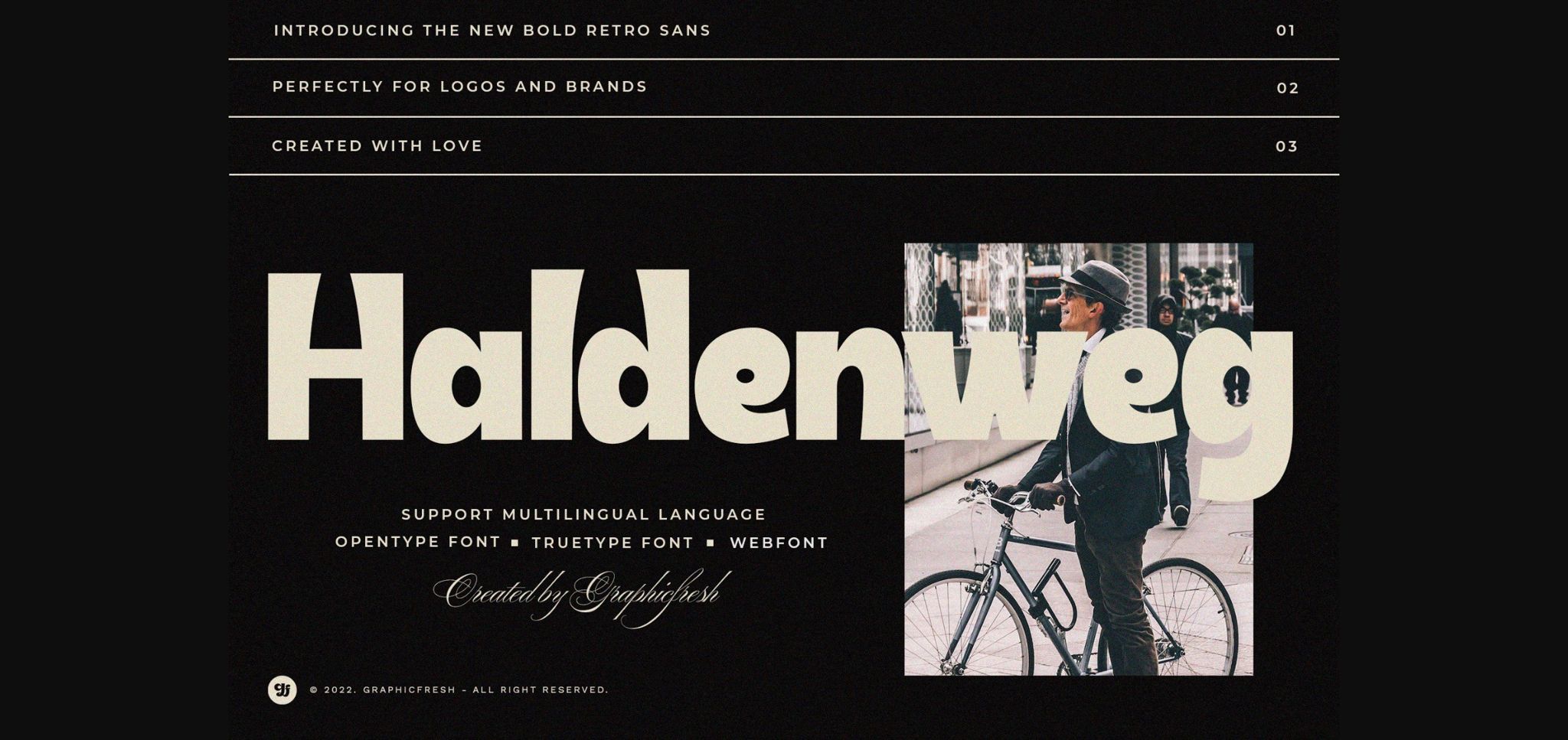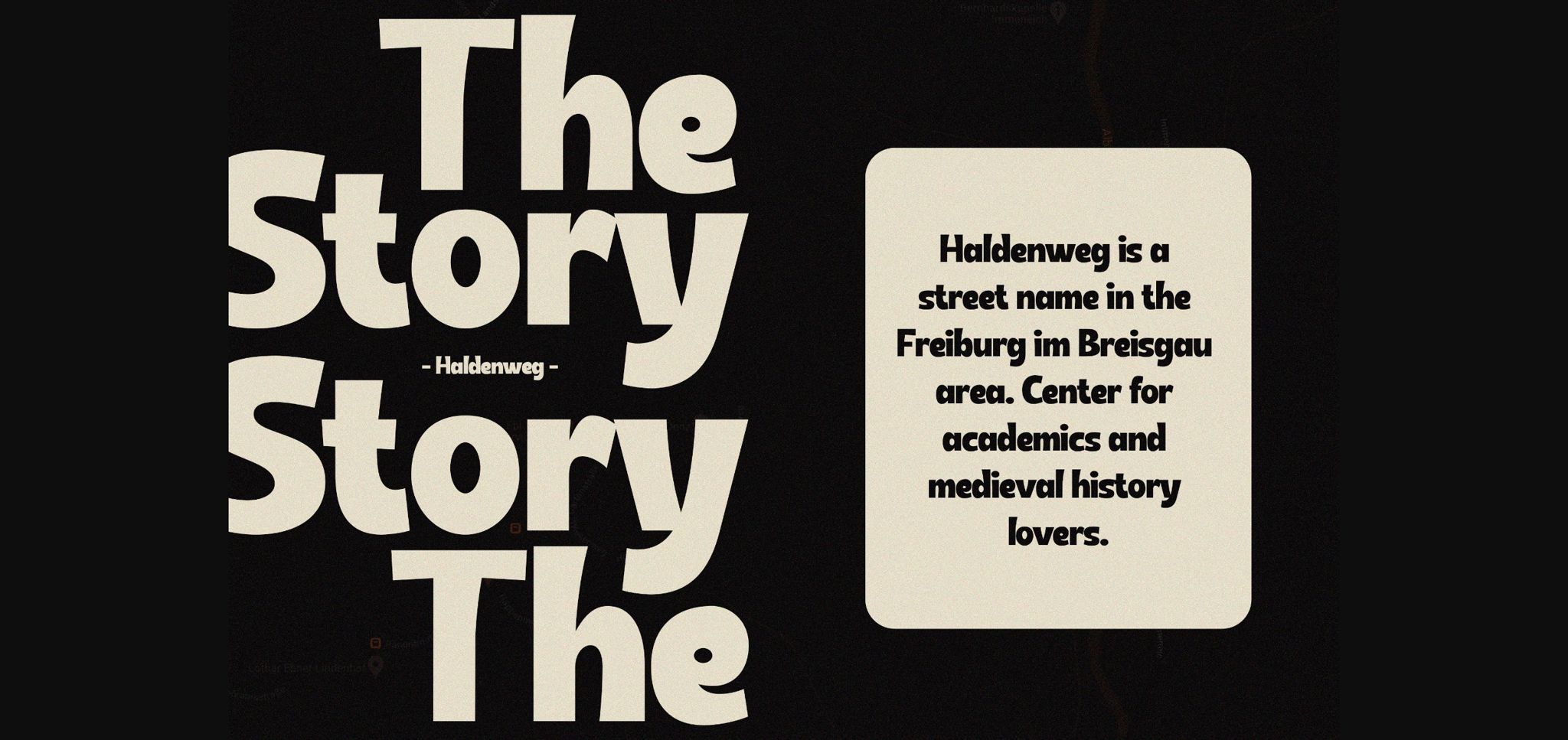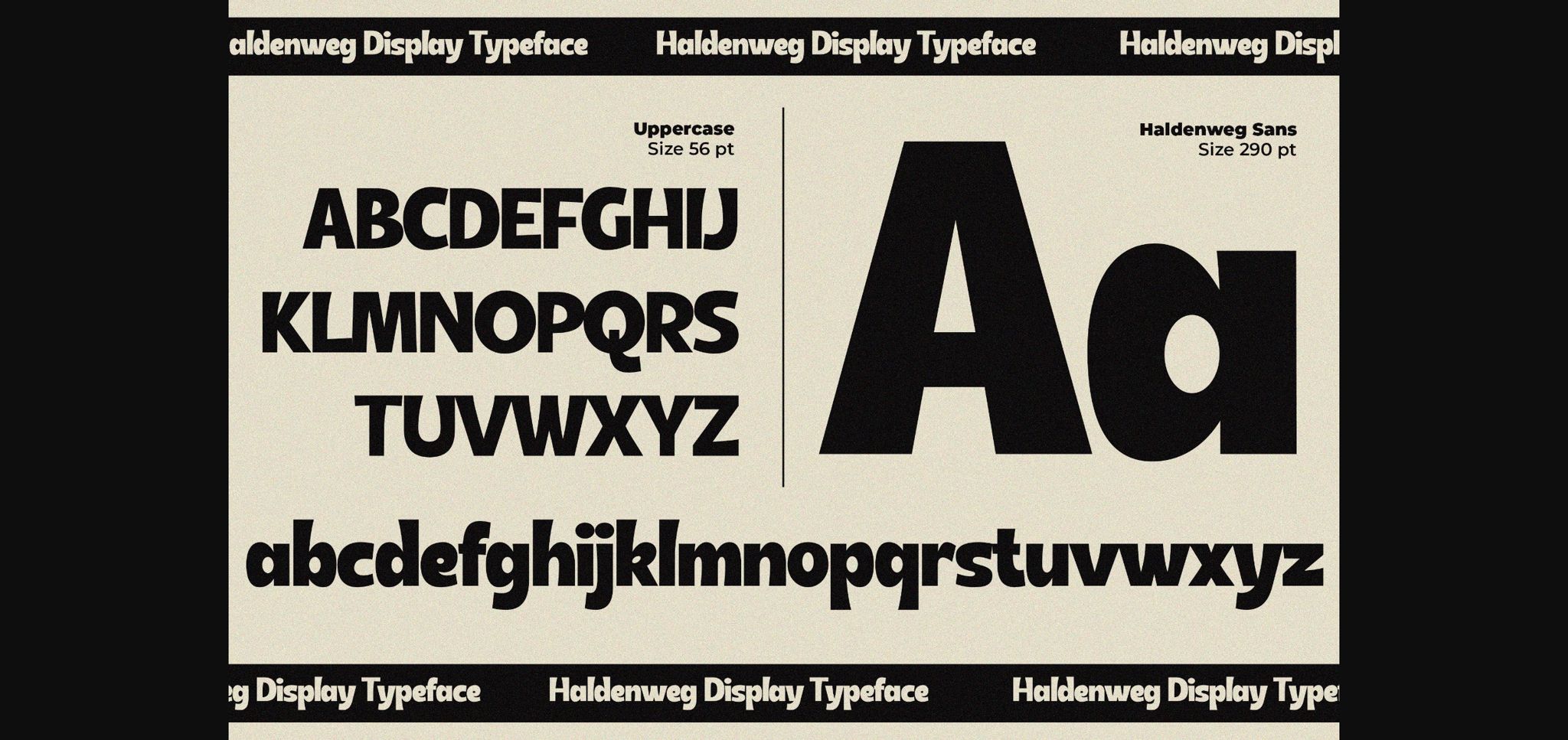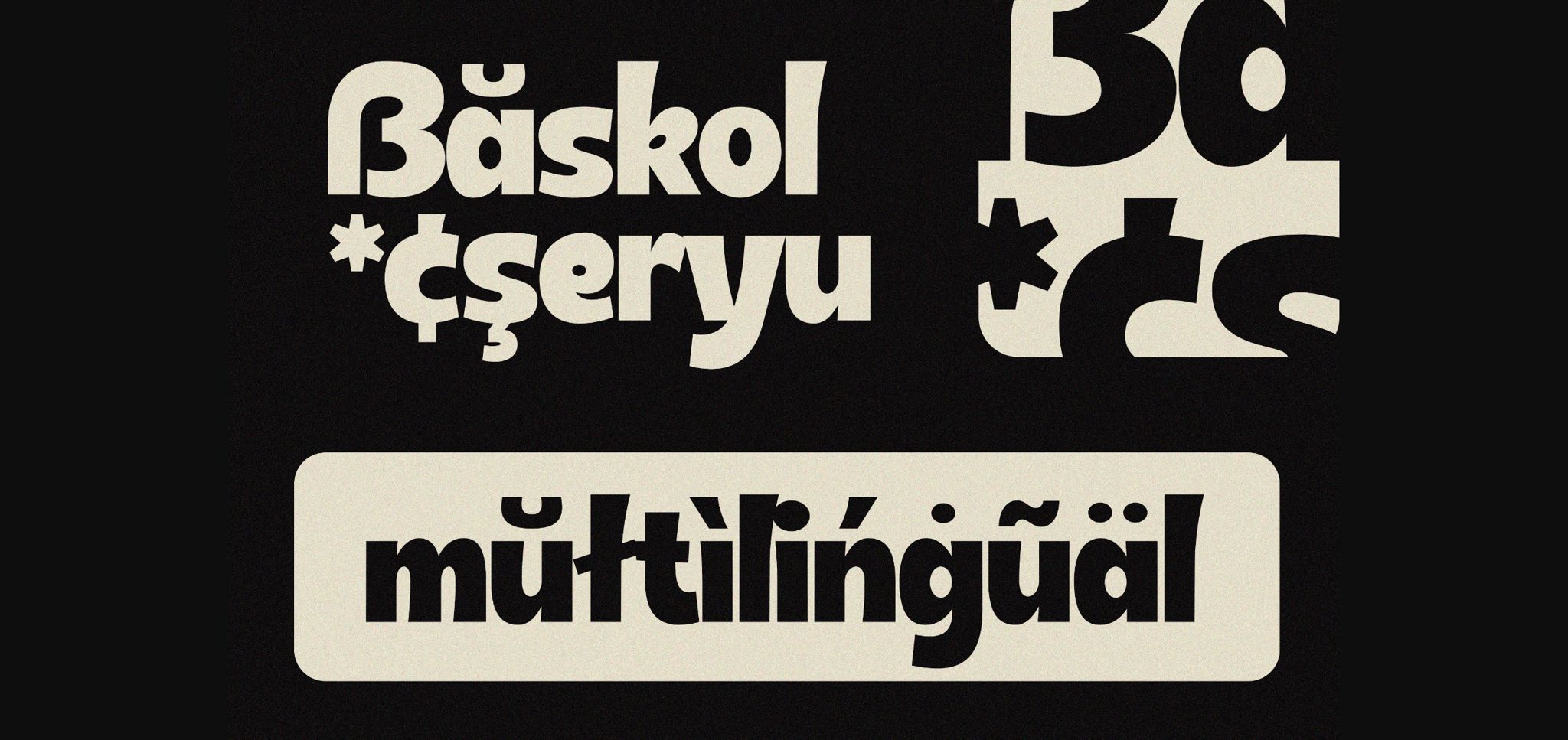
About Haldenweg Font
Haldenweg – Bold Retro Sans Serif created in a retro style. An adaptation of the life of the design industry in the 80s and 90s, so you can reminisce in a classic style. This font looks classic but a modern and elegant impression is still embedded in it.